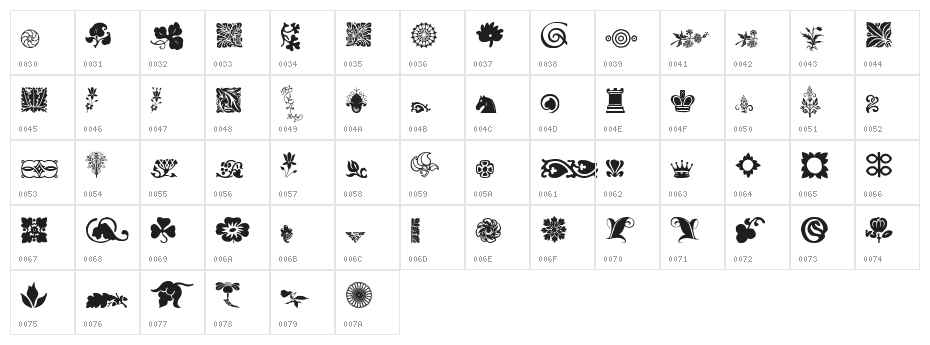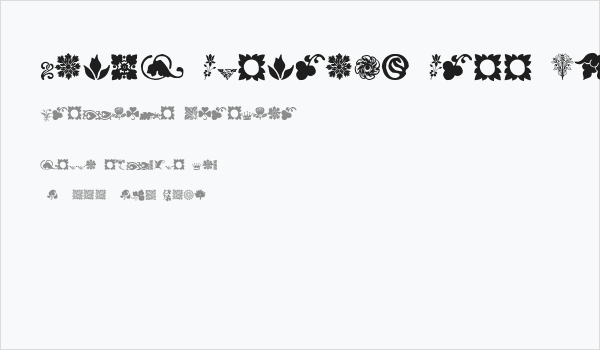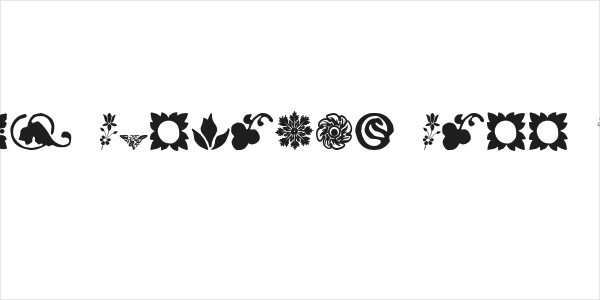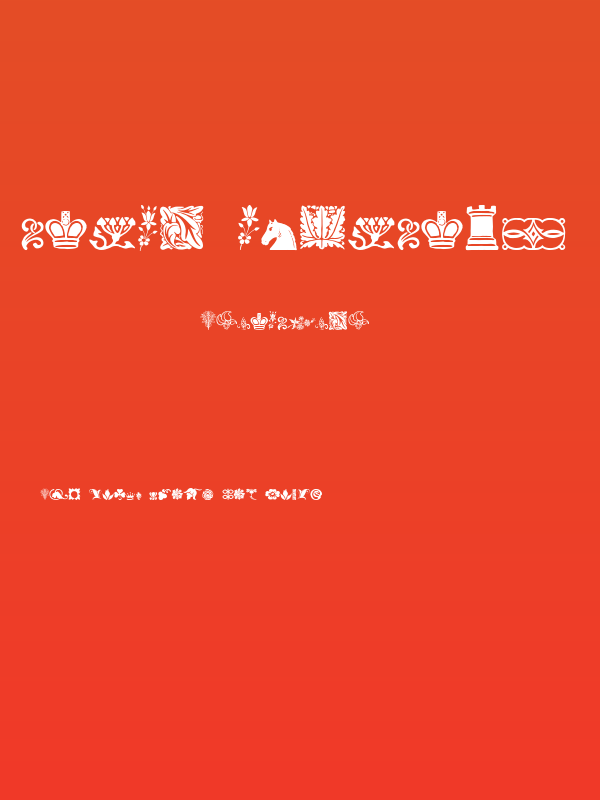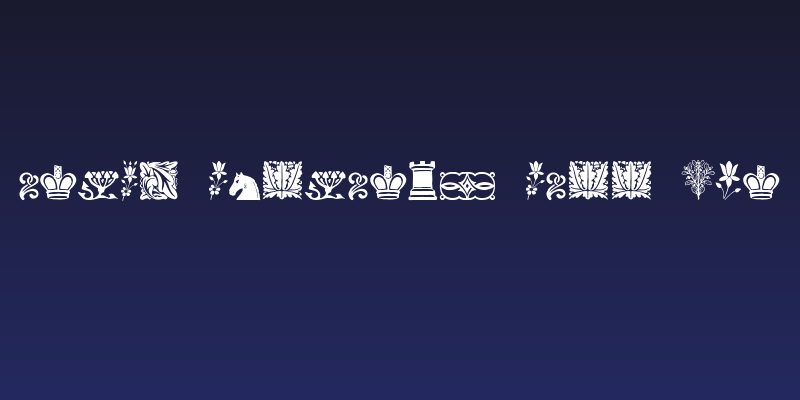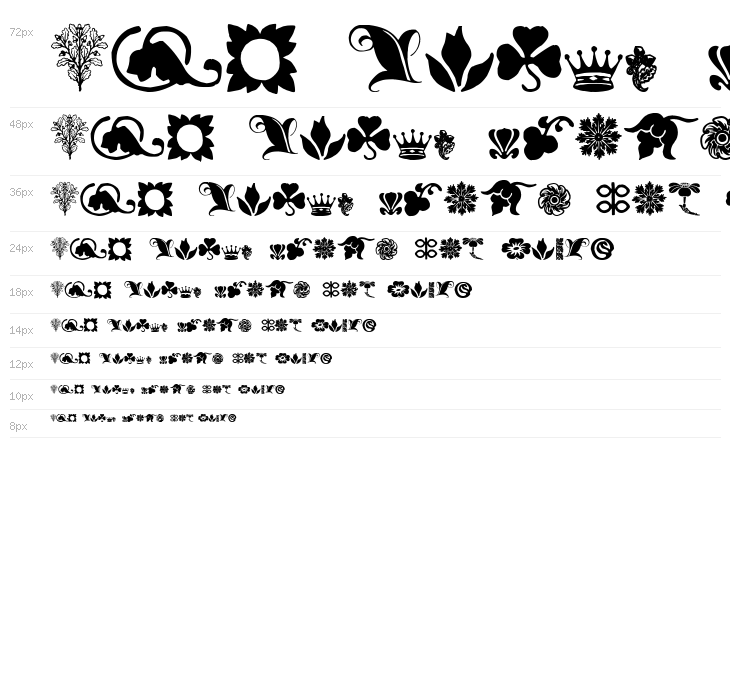
Rough Fleurons Free Two Font
Rough Fleurons Free Two Description
A decorative dingbat set featuring a variety of floral, botanical, and ornamental motifs, including chess pieces, crowns, and abstract flourishes. The glyphs are bold, highly detailed, and rendered in solid black, evoking a vintage or classical engraving style.
| Overall Style | Vintage, Decorative |
| Use Case | Borders, embellishments, graphic accents, invitations, certificates. |
| Proposed Projects | Invitations, certificates, borders, decorative dividers, vintage-themed designs, scrapbooking, packaging. |